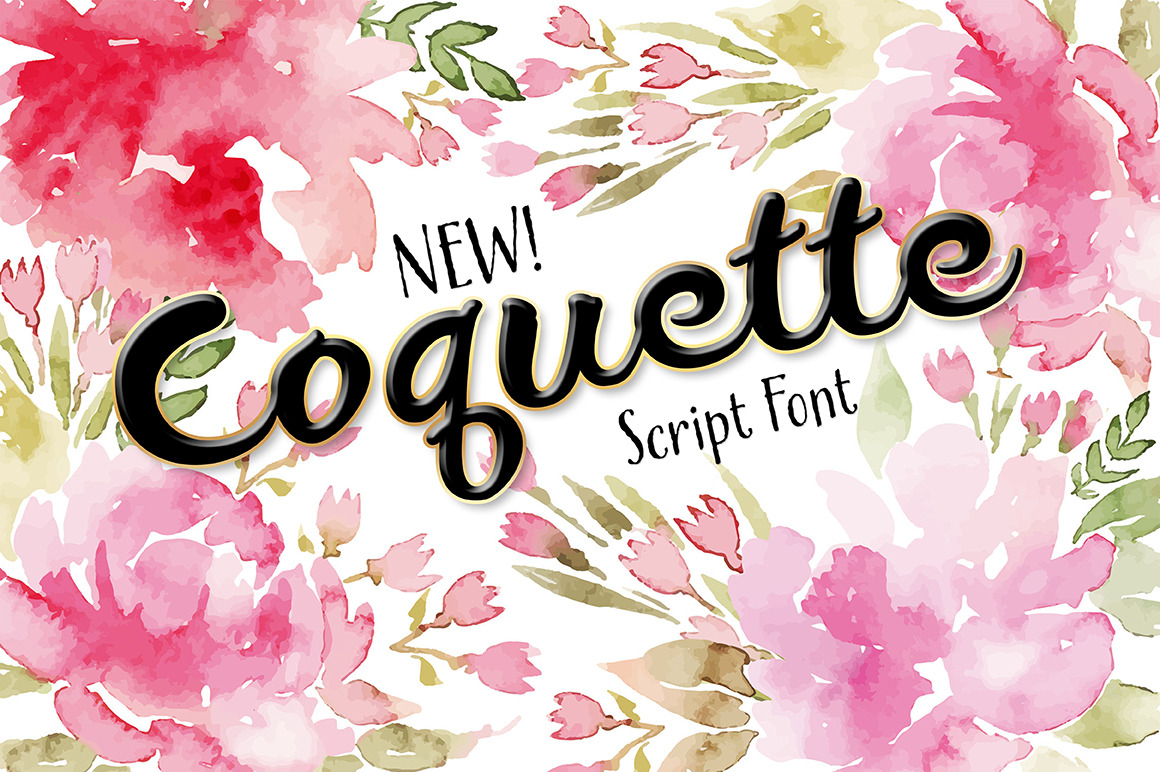
Coquette Script Font
Coquette is a hand-drawn script font. Has good weight for both headlines and body copy. It is perfect for personal expression products, t-shirts, product design, flyers, bill boards, scrapbooking, and advertising.
Coquette has great readability and is a modern hand-drawn script font. Files included are OTF and TTF with (Latin-1 Supplement) ÀÁÂÃÄÅÆÇÈÉÊËÌÍÎÏÝ ÑÒÓÔÕÖØŒÙÚÛÜ àáâãäåæçèéêëìíîïñòóôõöðøœùúûüýÿ.